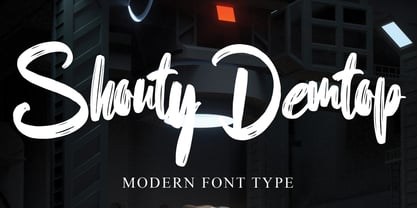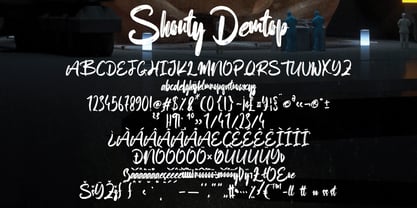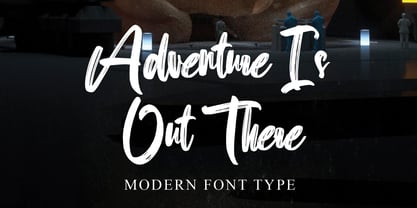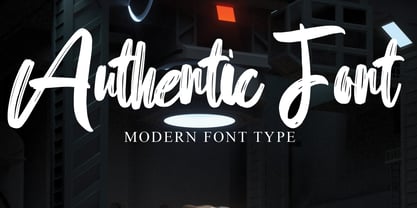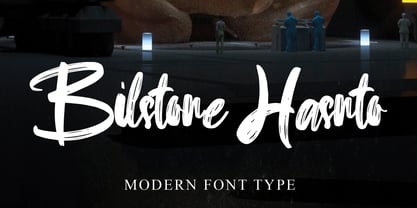
Shouty Demtop
von Ayska
Die Schriftfamilie Shouty Demtop wurde von Dhoni Trihatmoko entworfen und von Ayska veröffentlicht. Shouty Demtop enthält 1 Stile. Mehr über diese Familie
Dive into the captivating magic of Shouty Demtop, a seamlessly intertwined typeface which marries contemporary elegance with the whimsical appeal of hand-drawn designs. Every curve and line in Shouty Demtop is meticulously shaped, exuding a fashionable elegance and sophisticated charm that will instantly elevate your creative projects.
This matchless typeface is essential for engaging your blog readers, bestowing a hint of uniqueness on your e-journal, introducing vivacity into your invitations, or conveying deep sentiments in your personalized cards. Acting as the bridge between traditional scrapbook designs and modern aesthetics particularly suited for interior design, Shouty Demtop stands as the paragon of flexibility.
Each deployment of Shouty Demtop breathes a unique artistic allure onto your digital canvas. Staying true to its roots yet fueling your artistic drive, it sets the stage for outstanding and notable results. Engage with the adaptable strength of Shouty Demtop and watch as your creative concepts metamorphose into exclusive masterpieces.
Designer: Dhoni Trihatmoko
Foundry: Ayska